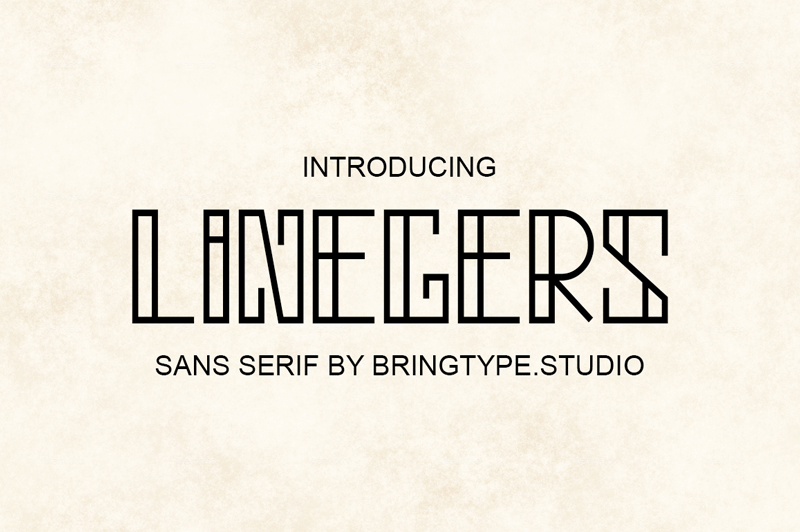
Font name: | Linegers |
Author: | Abdul Aziz |
Linegers are fonts with lines that I make straight until I can make a good font. This DEMO font is ONLY FOR PERSONAL USE! Link to buy the full version and commercial license: --soon-- thank you |